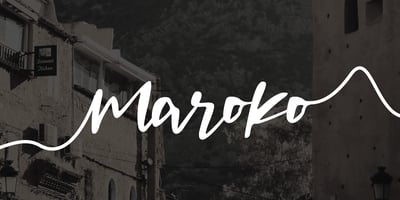
Maroko
Maroko font
Maroko Font Family was designed by Mariyana and published by Goodigital13. Maroko contains 1 styles and family package options. Perfectly suited to stationery, logos and much more. It looks stunning on wedding invitations, thank you cards, quotes, greeting cards, logos, business cards and every other design which needs a handwritten touch.Made your own design cards, poster, or anything else you might think of!